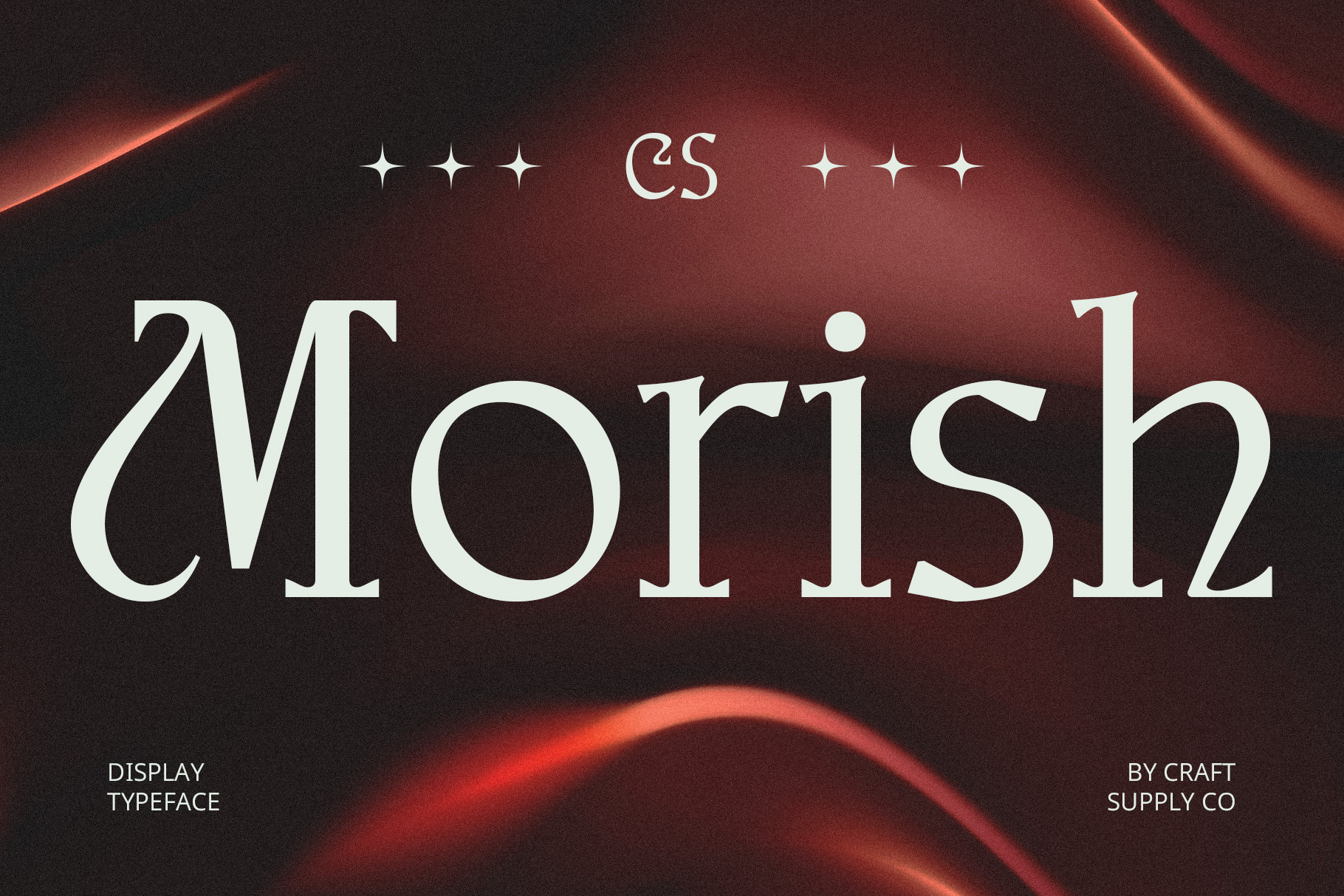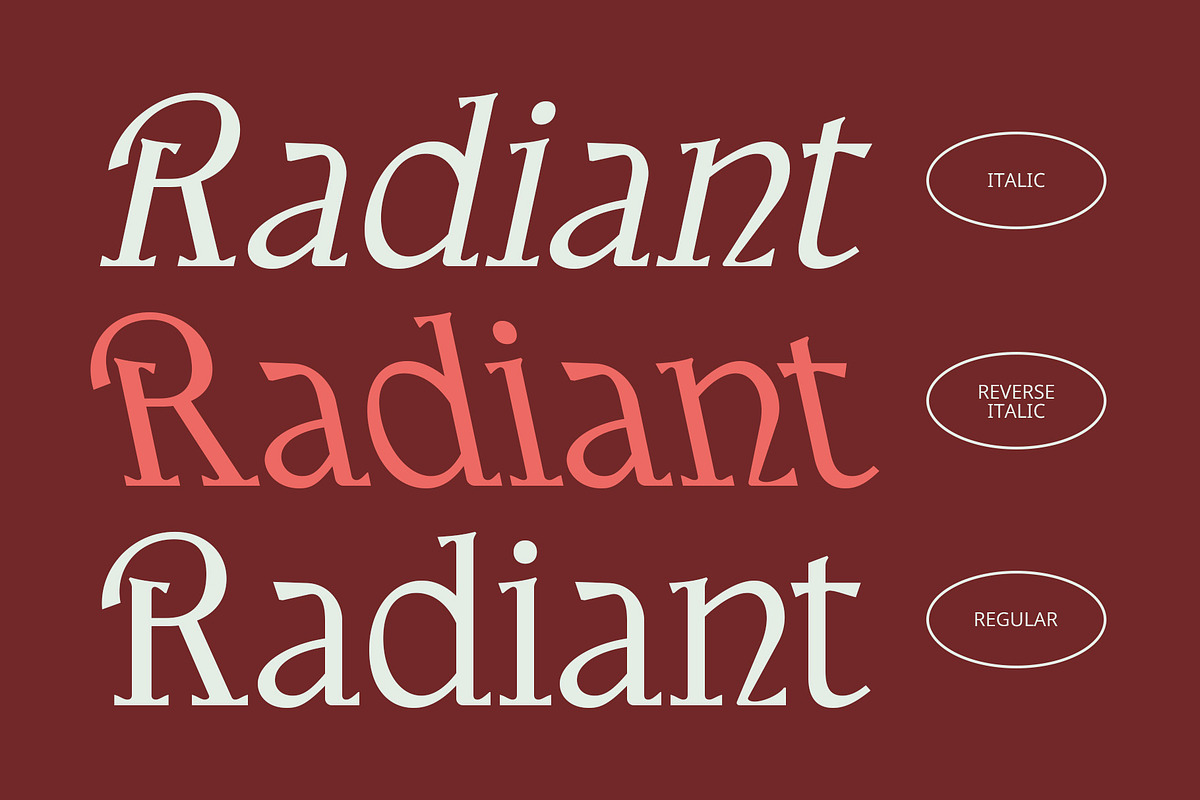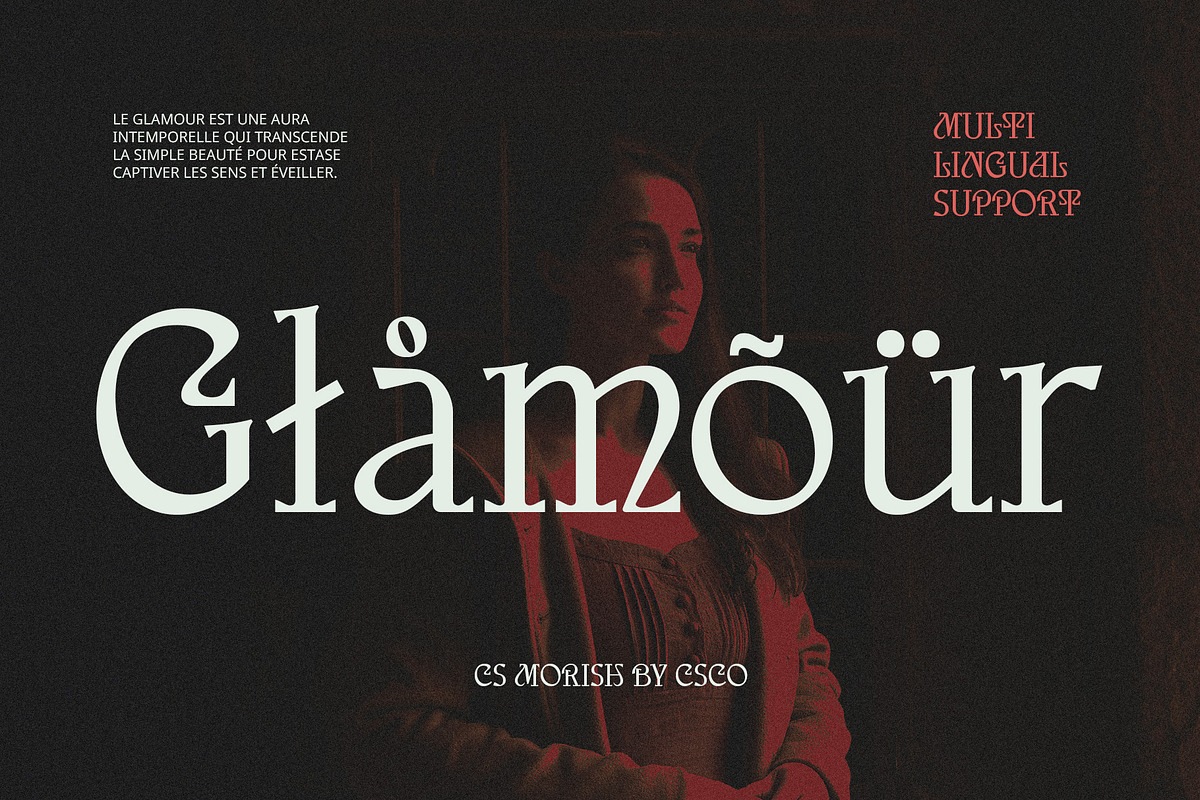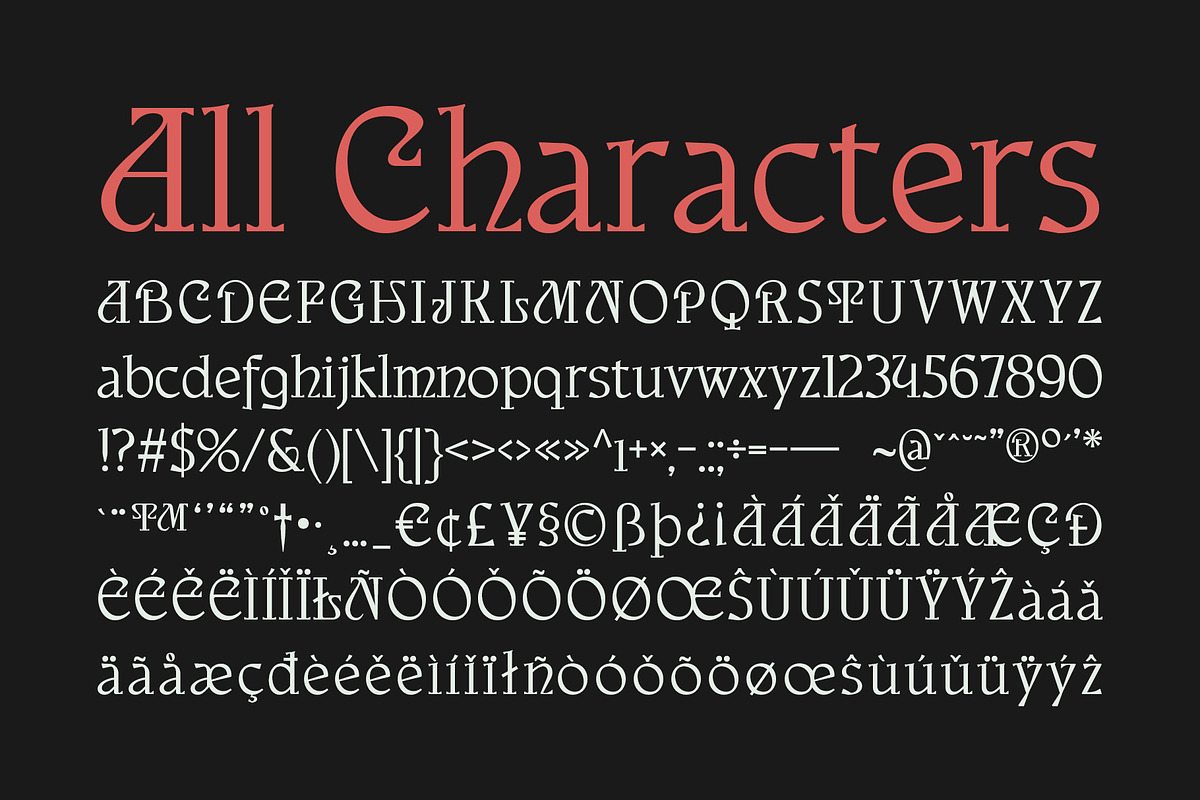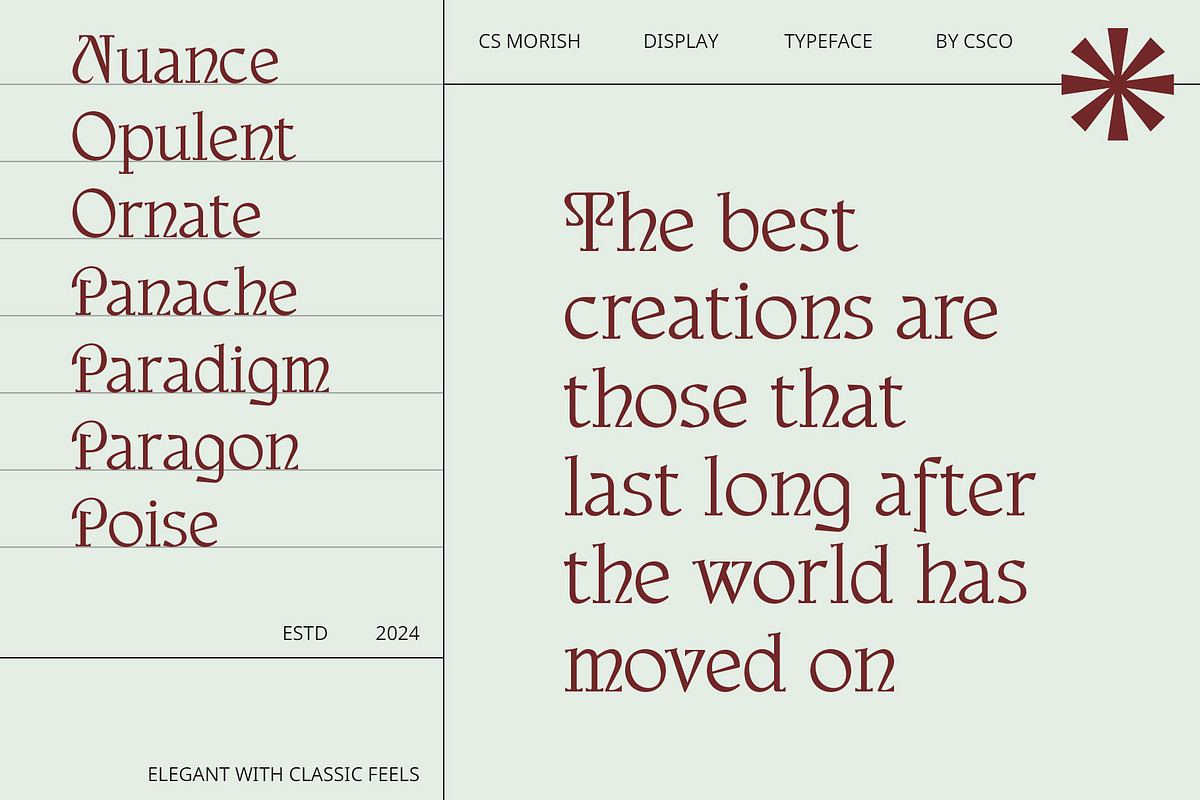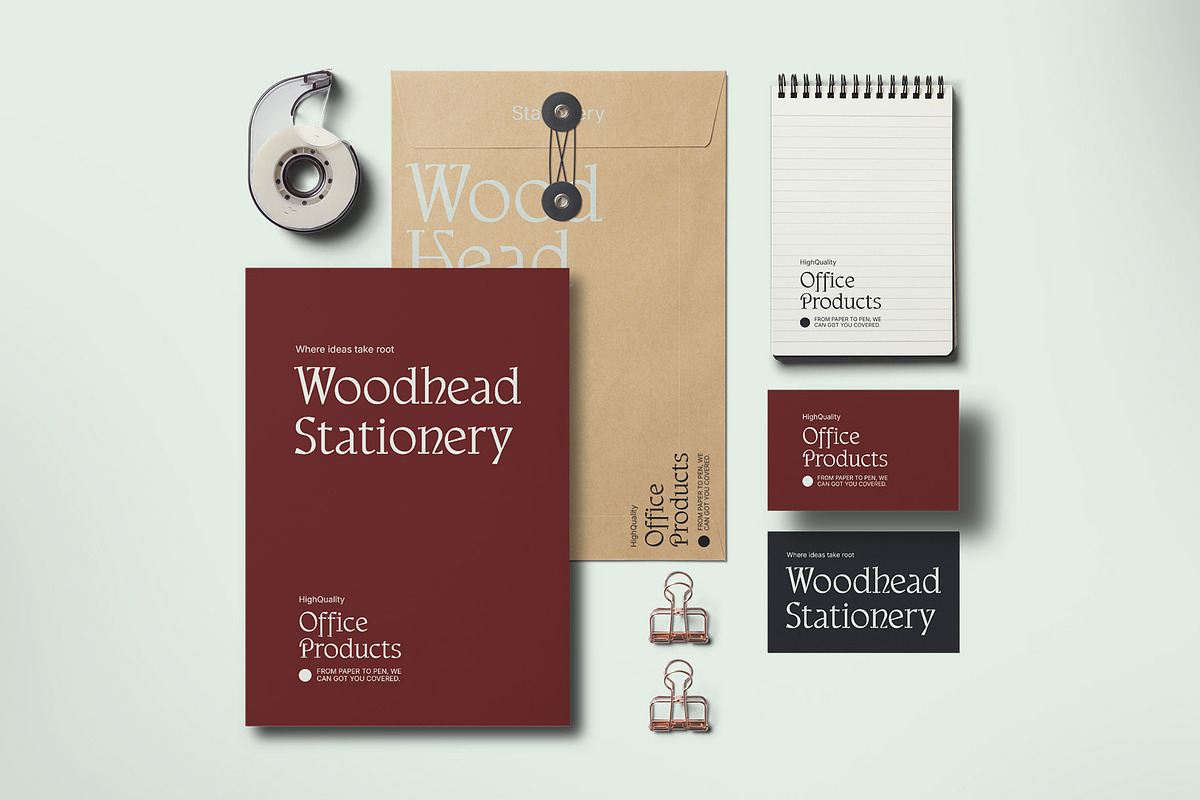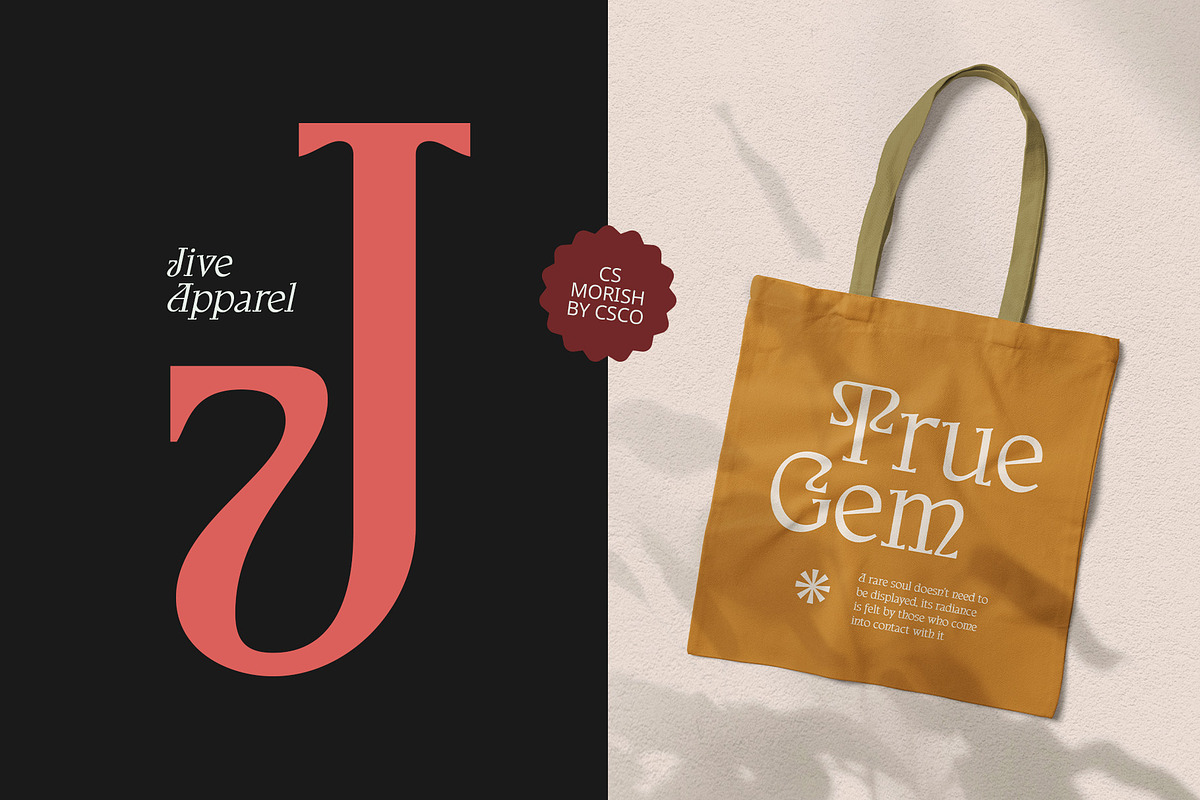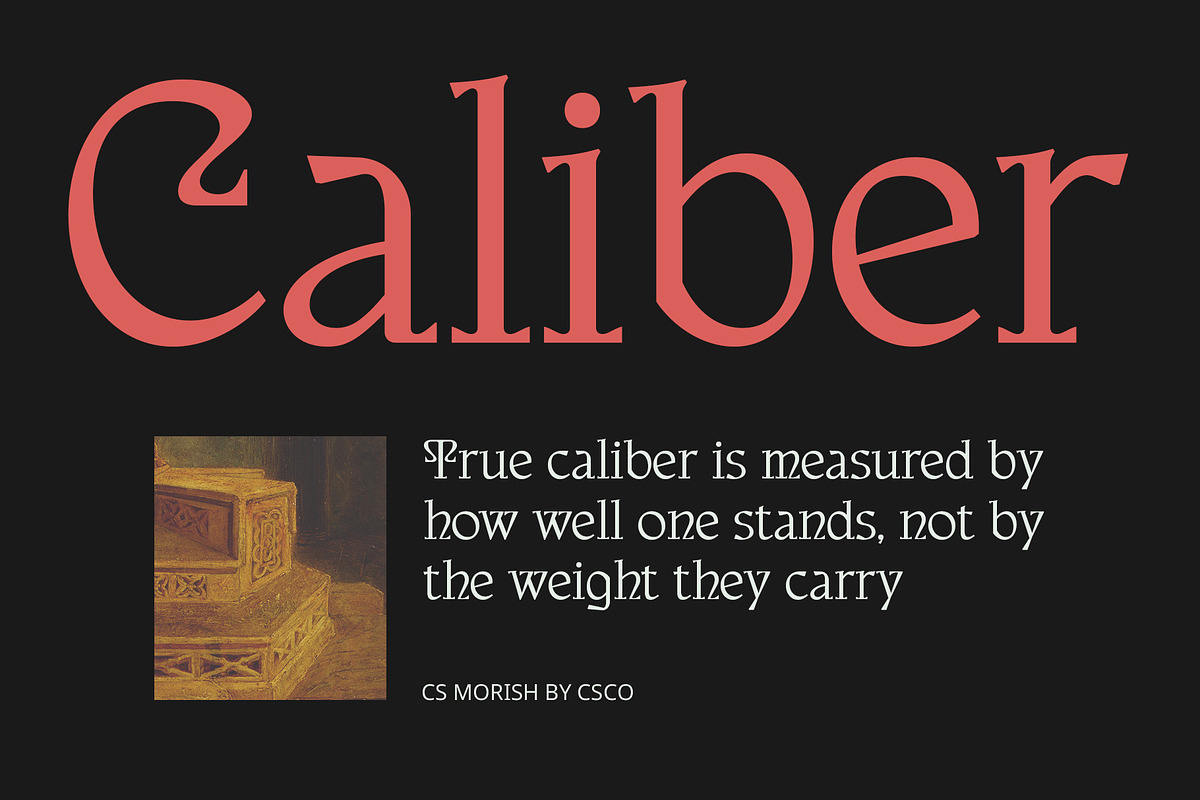
CS Morish – Uncial Font
CS Morish – Uncial Font: A Touch of Timeless Elegance
Uncial Serif with Handwritten Charm CS Morish is a display serif font that blends the beauty of uncial style with classic serif details, creating a design that feels both historical and refined. Its distinctive, slightly curved strokes and fluid letterforms evoke the elegance of ancient scripts, offering a sophisticated yet artistic touch. This font brings an air of timelessness to any project, with a graceful and unique style that makes it stand out in high-end designs.
Ideal for Luxury Branding and Formal Invitations With its rich historical roots and sophisticated charm, CS Morish is perfect for projects that require a sense of tradition and refinement. The uncial letterforms lend themselves beautifully to luxury branding, creating an instantly recognizable and prestigious appearance. Whether you’re designing formal invitations, exclusive event materials, or high-end editorial work, this font captures the essence of elegance, delivering a refined and memorable impact.
Timeless Sophistication Meets Readability While steeped in tradition, CS Morish maintains a modern readability that makes it both functional and beautiful. Its fluid design ensures that each letter flows seamlessly into the next, creating a cohesive and graceful text experience. The addition of serifs enhances legibility, ensuring that the font remains accessible while preserving its artistic charm.
- CS Morish Regular
- CS Morish Italic
- CS Morish Reverse Italic